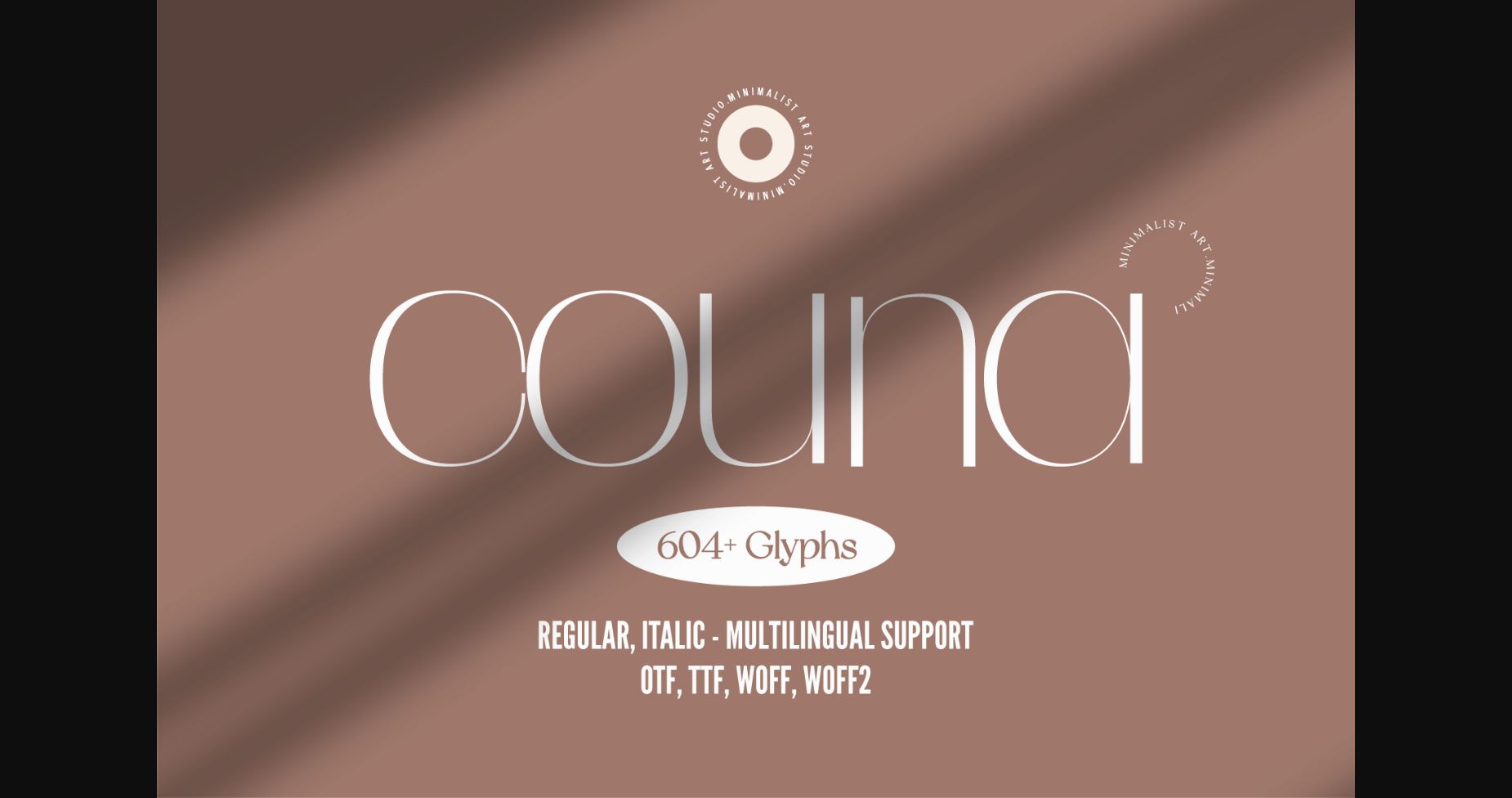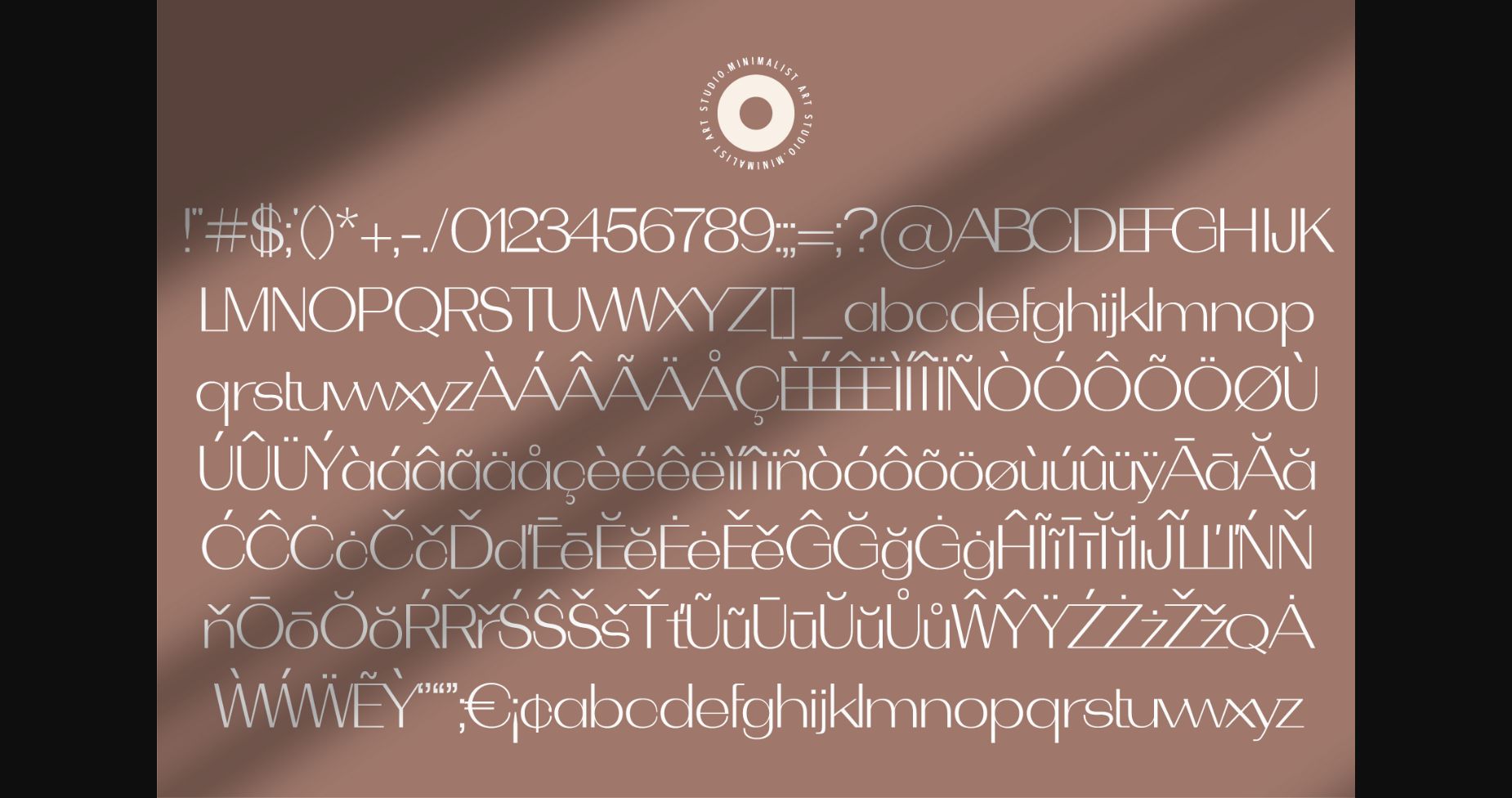
About Couna Font
Introducing Couna, the ultimate embodiment of minimalist elegance in the world of typography. This sans serif typeface is the perfect choice for those seeking a refined and understated design, without sacrificing style.
With its clean lines and simple yet sophisticated shapes, Couna is a versatile typeface that can be used for a wide range of design applications. Whether you’re creating a logo, designing a website, or crafting a print layout, Couna will help you achieve a timeless and polished look.